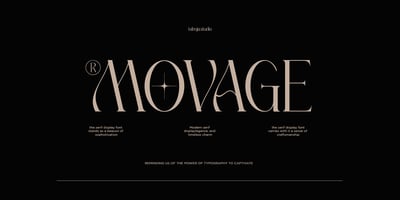
TBJ Movage Serif Display Font is ideal for luxury branding, fashion magazines, high-end editorial layouts, premium packaging design, sophisticated advertising campaigns, architectural signage, fine art exhibitions, upscale restaurant menus, corporate annual reports, and elegant book covers. This refined typeface works exceptionally well for luxury fashion brands, premium lifestyle publications, high-end hospitality venues, and professional services that demand sophisticated visual communication and premium market positioning.
What makes TBJ Movage Serif Display Font exciting is its masterful blend of classical serif elegance and contemporary display innovation. The meticulously crafted letterforms feature dramatic contrast between thick and thin strokes, creating striking visual impact while maintaining exceptional readability. Each character has been carefully designed with refined proportions and subtle stylistic details that communicate luxury and sophistication. The font's commanding presence makes it perfect for brands that want to convey exclusivity, premium quality, and timeless elegance in their visual identity.
The TBJ Movage Serif Display Font family includes comprehensive style variations featuring Light, Regular, Medium, Bold, and Extra Bold weights with corresponding Italic versions. Each weight maintains the font's characteristic elegance while providing different levels of emphasis and visual hierarchy. The complete family ensures typographic consistency across complex branding systems while offering the flexibility to create sophisticated layouts and compelling display applications that capture attention and convey prestige.
Professional designers and brand strategists will find TBJ Movage Serif Display Font Free Download invaluable for projects requiring premium visual communication. Whether you're designing for luxury goods, high-end services, or sophisticated digital experiences, this font delivers exceptional performance in creating memorable brand impressions. The dramatic character shapes and optimized display metrics make it particularly effective for headlines, logos, and large-scale applications where maximum visual impact is essential.
The versatility of TBJ Movage Serif Display Font extends across multiple luxury design disciplines. It works beautifully in editorial layouts, brand identity systems, packaging design, environmental graphics, and premium digital experiences. The font's excellent performance at large sizes makes it ideal for billboards, signage systems, and display applications where sophisticated typography enhances brand perception and market positioning.
For designers seeking a font that embodies luxury appeal with commanding display presence, TBJ Movage Serif Display Font represents an exceptional choice. Its sophisticated appearance suits premium brands while maintaining excellent impact across all media. The font's dramatic proportions and refined details create striking visual hierarchies that command attention and communicate exclusivity.